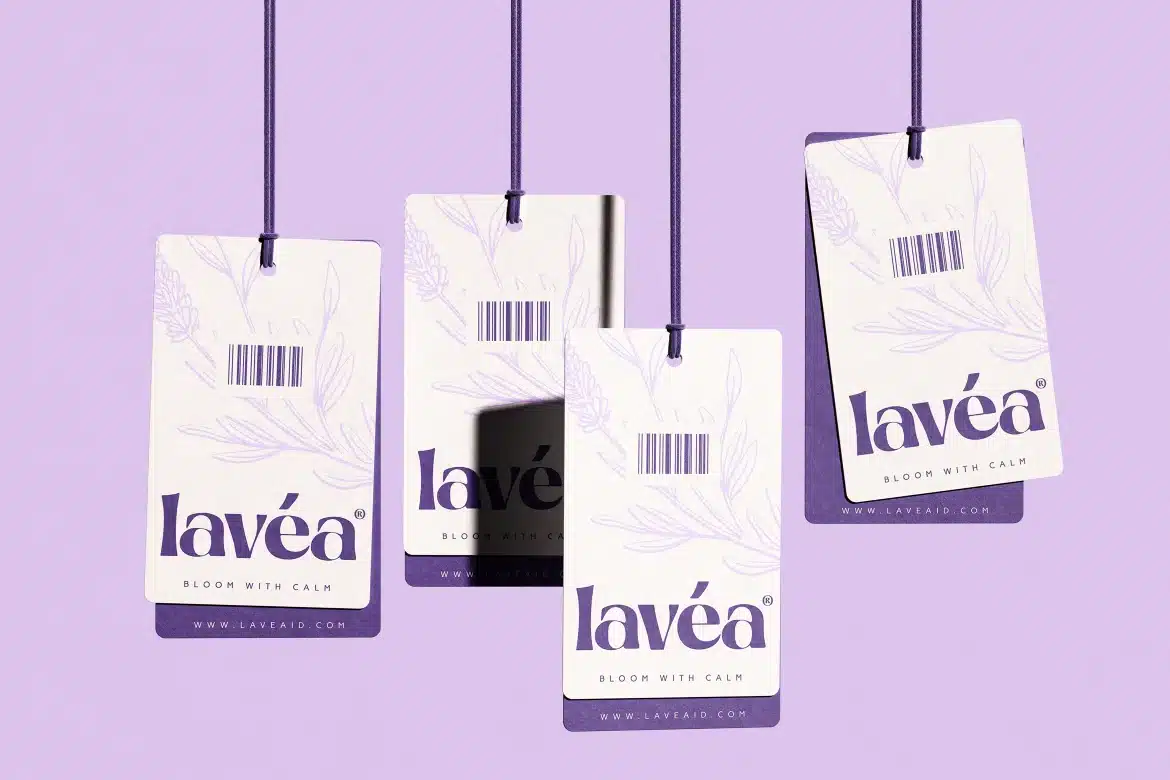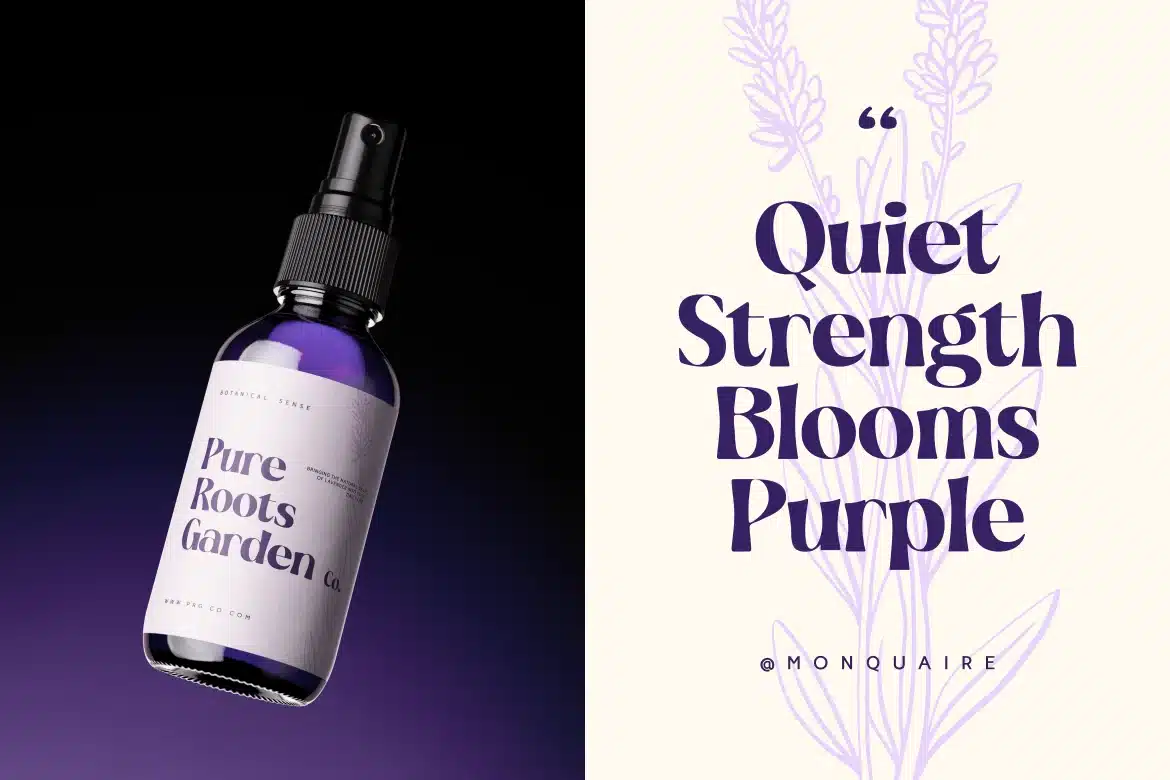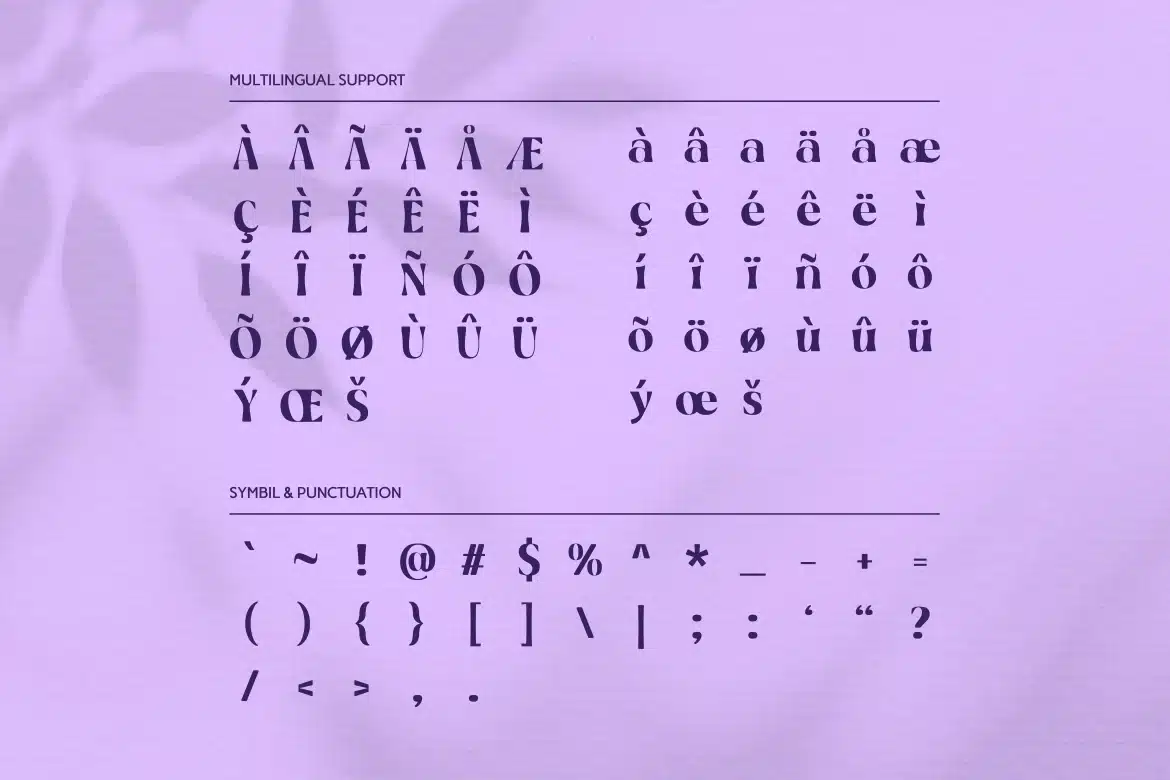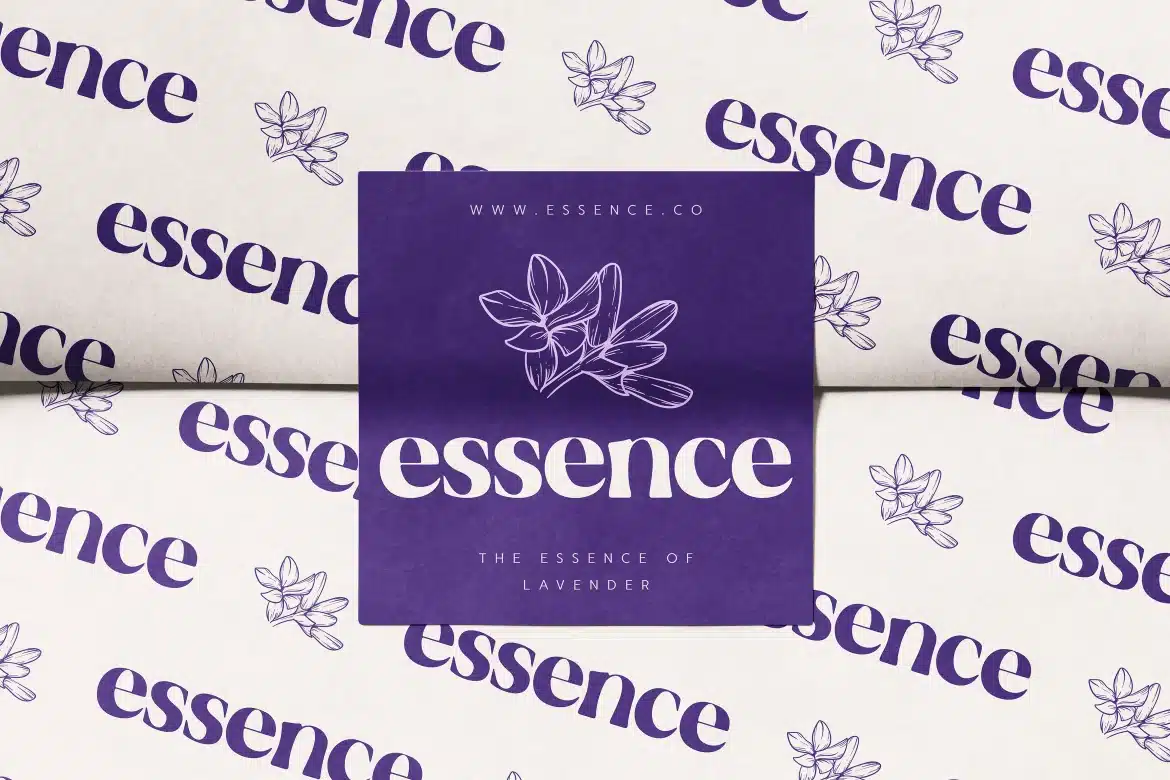
Monquaire – Serif Display Font
Monquaire is an elegant display serif font designed for refined branding and editorial impact. Featuring graceful curves, stylish contrast, and modern vintage charm, it’s perfect for luxury logos, fashion layouts, magazines, and creative projects. Monquaire brings sophistication, readability, and timeless beauty to elevate every visual identity with distinctive character.